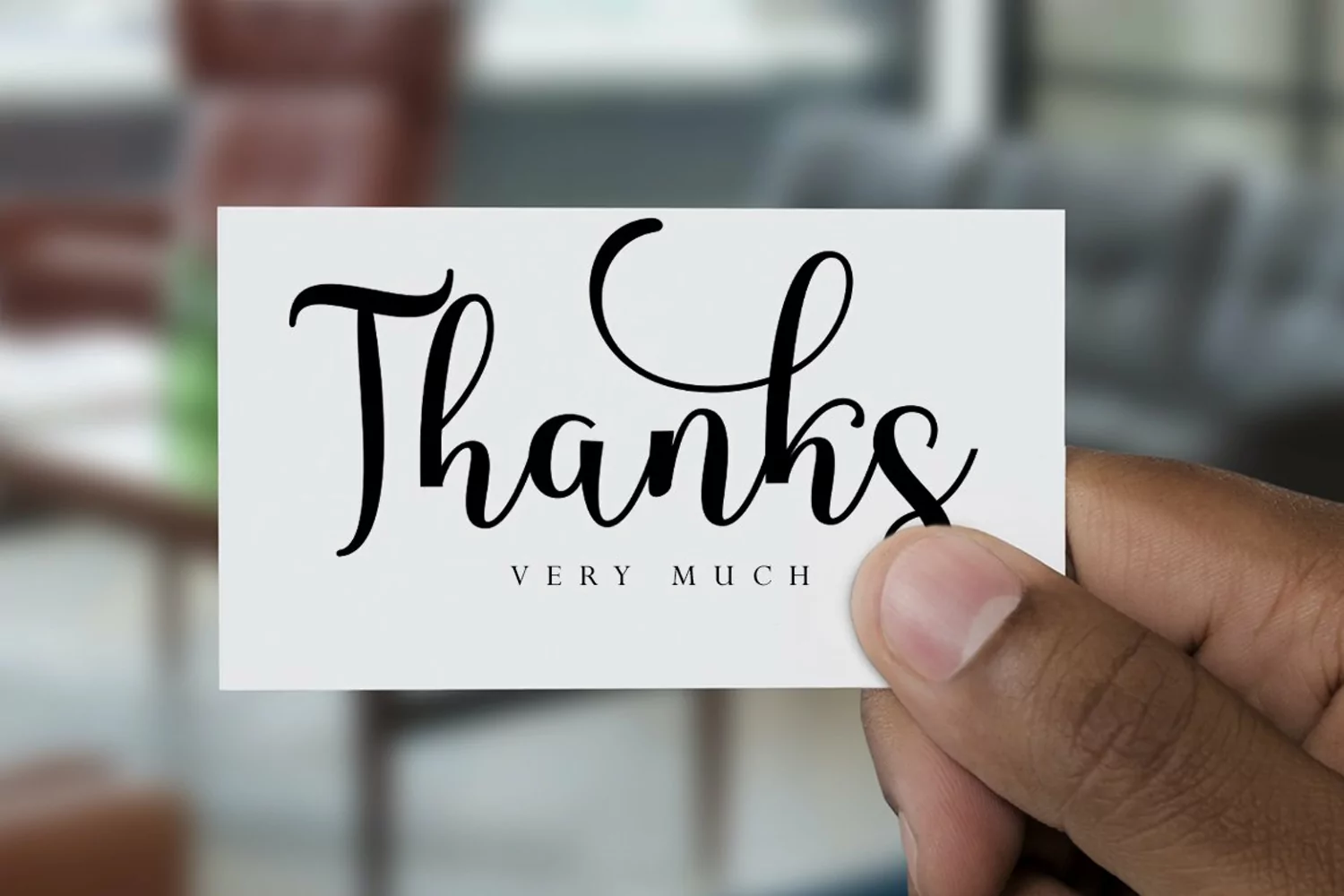
kellyna is a modern script font, described by an elegant touch, perfect for your favorite projects. This font is PUA encoded which means you can access all of the glyphs and swashes with ease! It features a varying baseline, smooth lines, gorgeous glyphs and stunning alternates.
Fall in love with its incredibly distinct and timeless style and use it to create spectacular designs!